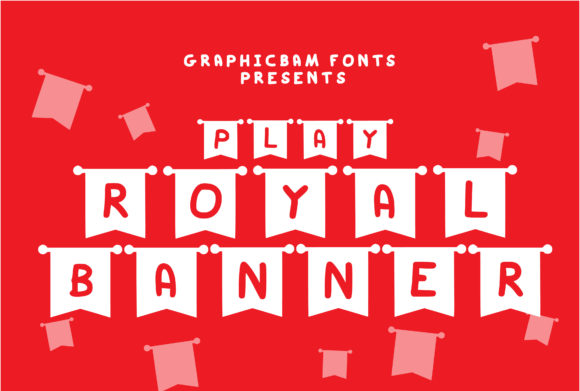
Introducing Play Royal Banner Font: The Ultimate Decorative Font for All Occasions
Are you tired of using the same old fonts for your crafts, digital designs, presentations, and greeting cards? Look no further! Play Royal Banner Font is here to revolutionize your creative projects with its cool and festive decorative style. In this article, we’ll dive into the world of Play Royal Banner Font and explore its features, benefits, and uses.
What is Play Royal Banner Font?
Play Royal Banner Font is a decorative font designed to add a touch of royalty and festivity to your creative projects. Its unique and elegant style makes it perfect for a wide range of applications, from crafting and digital design to presentations and greeting cards.
This font is carefully crafted to provide a distinctive and sophisticated look that will make your projects stand out from the crowd. Whether you’re a designer, artist, or DIY enthusiast, Play Royal Banner Font is sure to become your go-to font for all occasions.
Features of Play Royal Banner Font
- Unique and Elegant Style: Play Royal Banner Font boasts a distinctive and sophisticated design that adds a touch of royalty to your projects.
- Versatile: This font is suitable for a wide range of applications, including crafts, digital design, presentations, and greeting cards.
- High-Quality: This font is designed with high-quality and clarity in mind, ensuring that it looks great in any size or resolution.
Benefits of Using Play Royal Banner Font
So, why should you choose Play Royal Banner Font for your creative projects? Here are just a few benefits of using this amazing font:
- Adds a Touch of Royalty: Play Royal Banner Font adds a touch of sophistication and elegance to your projects, making them perfect for special occasions.
- Increases Creativity: This font’s unique style and versatility can inspire creativity and help you think outside the box.
- Saves Time: With Play Royal Banner Font, you can create stunning projects in no time, thanks to its ease of use and high-quality design.
- Perfect for DIY Projects: This font is ideal for DIY enthusiasts who want to add a professional touch to their handmade projects.
Uses of Play Royal Banner Font
Play Royal Banner Font is an incredibly versatile font that can be used in a wide range of applications. Here are some ideas to get you started:
- Crafts: Use Play Royal Banner Font to add a touch of elegance to your handmade crafts, such as scrapbooking, card making, and DIY gifts.
- Digital Design: This font is perfect for digital designers who want to create stunning graphics, social media posts, and website headers.
- Presentations: Add a touch of sophistication to your presentations with Play Royal Banner Font, making them perfect for business meetings, conferences, and workshops.
- Greeting Cards: Create beautiful and unique greeting cards for special occasions, such as birthdays, weddings, and holidays.
Tips and Tricks for Using Play Royal Banner Font
To get the most out of Play Royal Banner Font, here are some tips and tricks to keep in mind:
- Experiment with Colors: Play Royal Banner Font looks great in a variety of colors, so don’t be afraid to experiment and find the perfect hue for your project.
- Mix and Match Fonts: Combine Play Royal Banner Font with other fonts to create a unique and eye-catching design.
- Pay Attention to Size: Make sure to adjust the font size to suit your project’s needs, ensuring that it’s clear and readable.
- Add Effects and Textures: Add effects and textures to your text to give it a more premium and professional look.
In conclusion, Play Royal Banner Font is a cool and festive decorative font that’s perfect for a wide range of creative projects. Its unique and elegant style, versatility, and ease of use make it an ideal choice for designers, artists, and DIY enthusiasts alike.